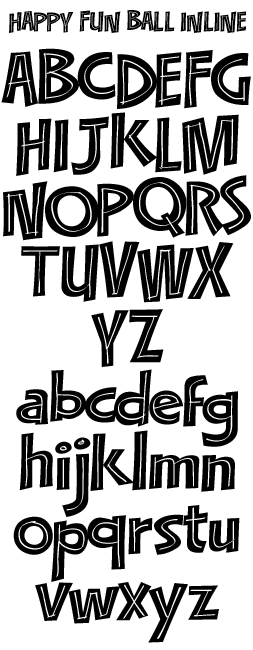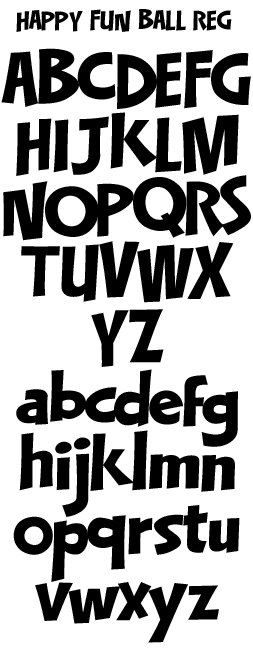
2 very happy fun fonts: Regular and Inline. Lots of personality and bounce. Perfect for lighthearted applications or designs that need to appeal to kids.
Happy Fun Ball includes numbers, full
punctuation & accent characters.